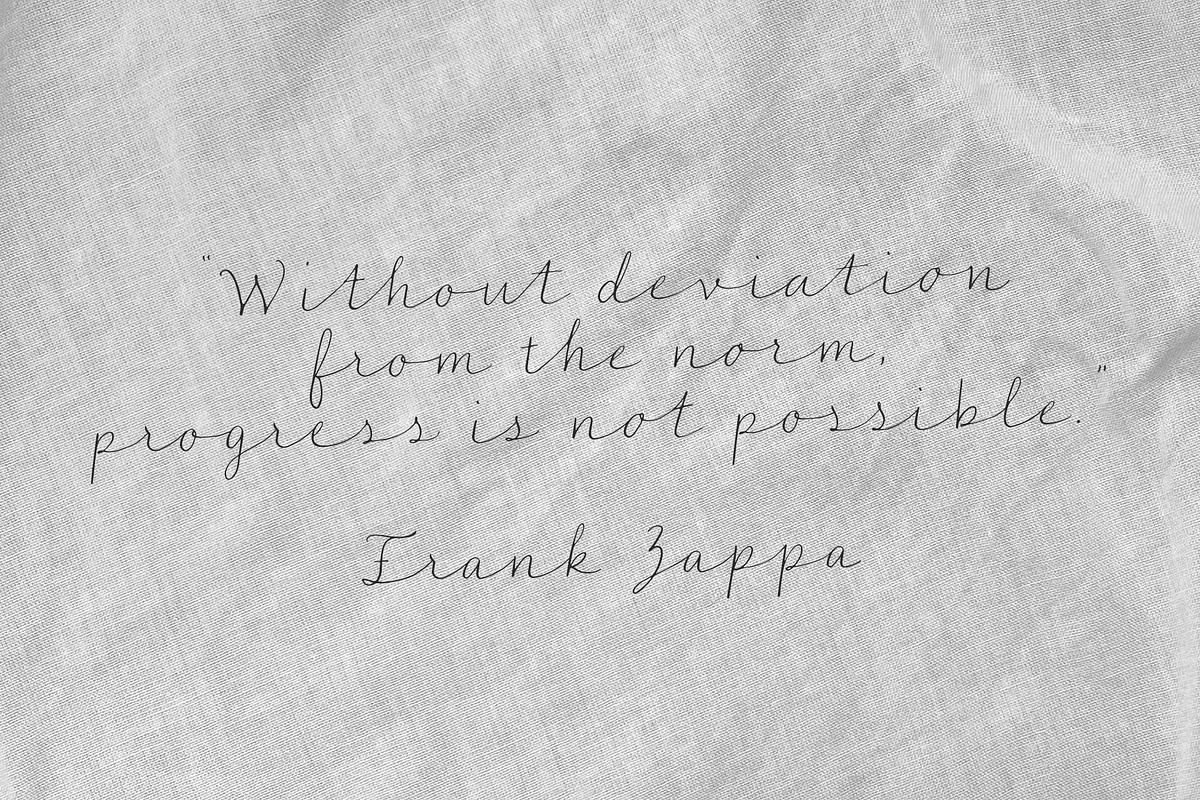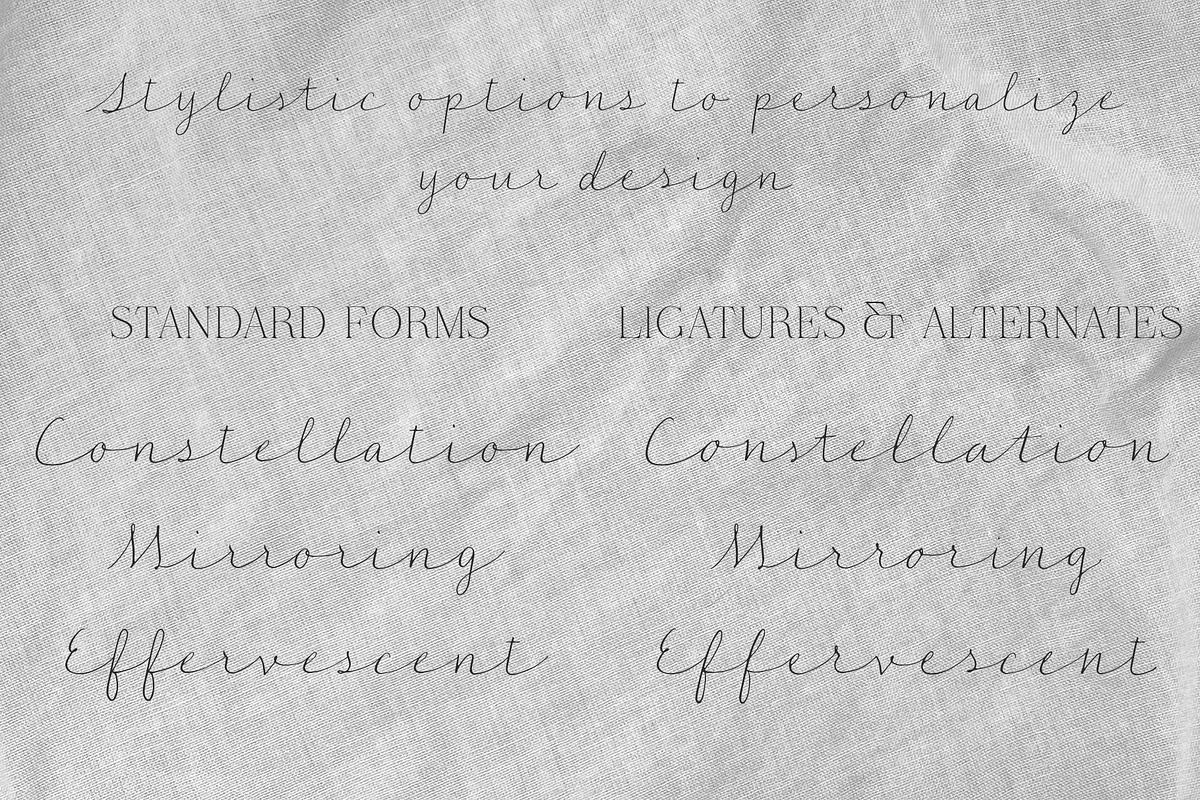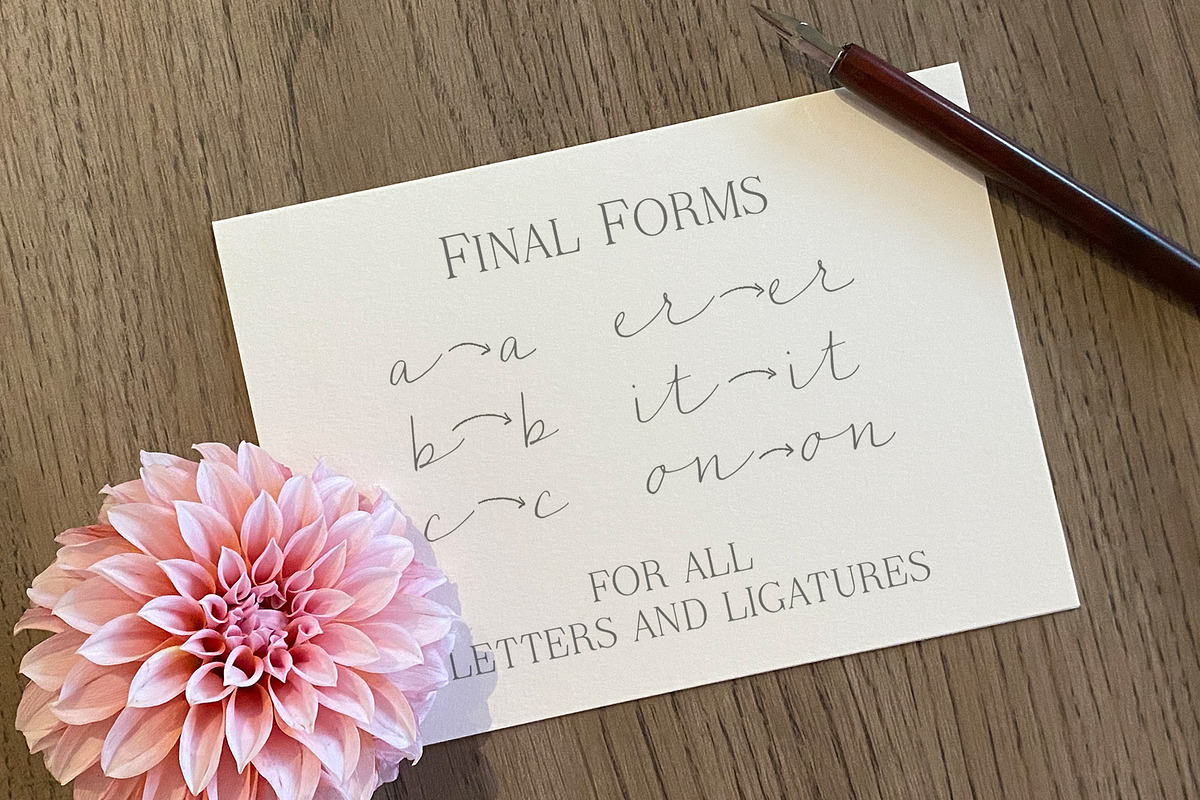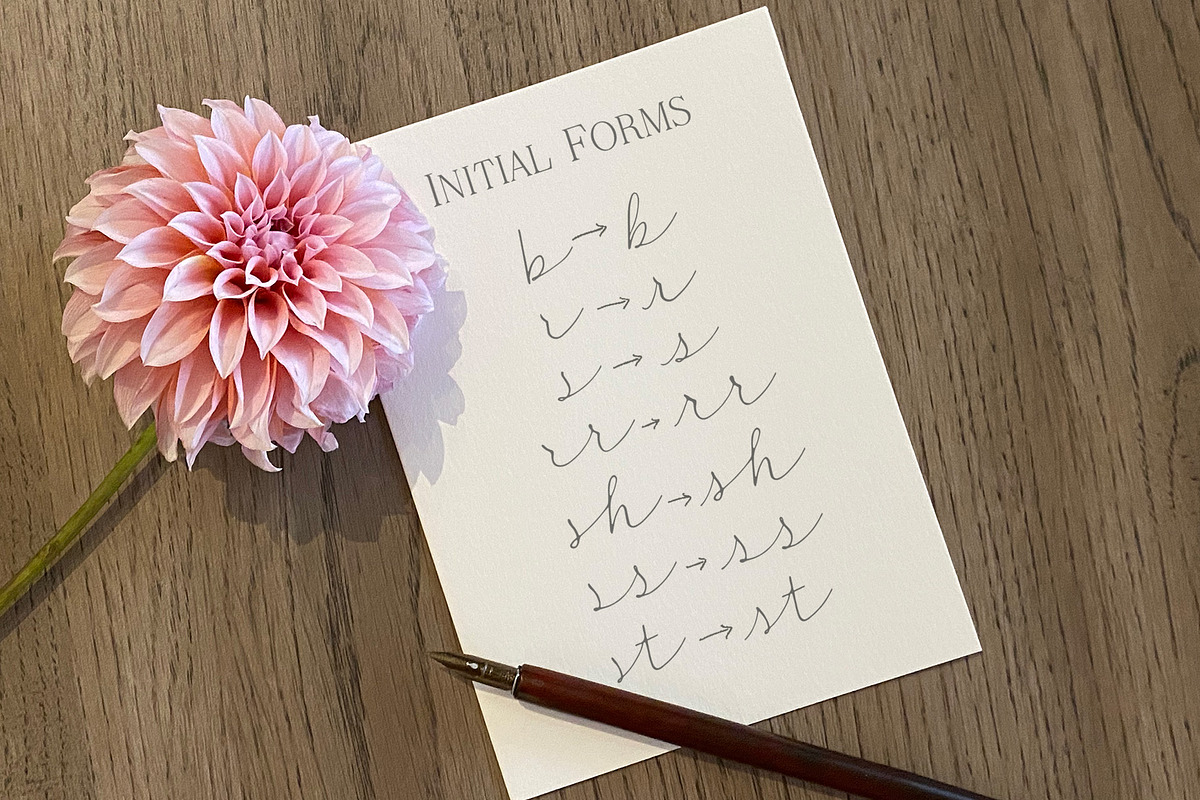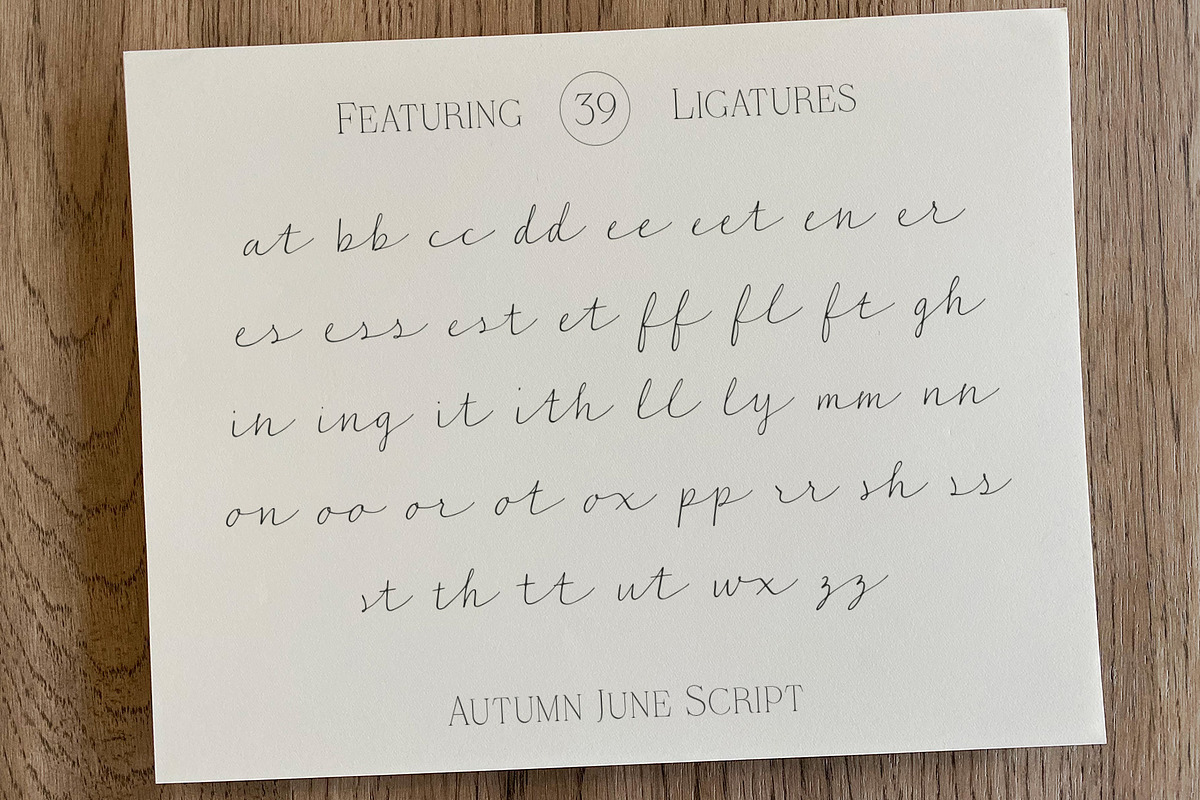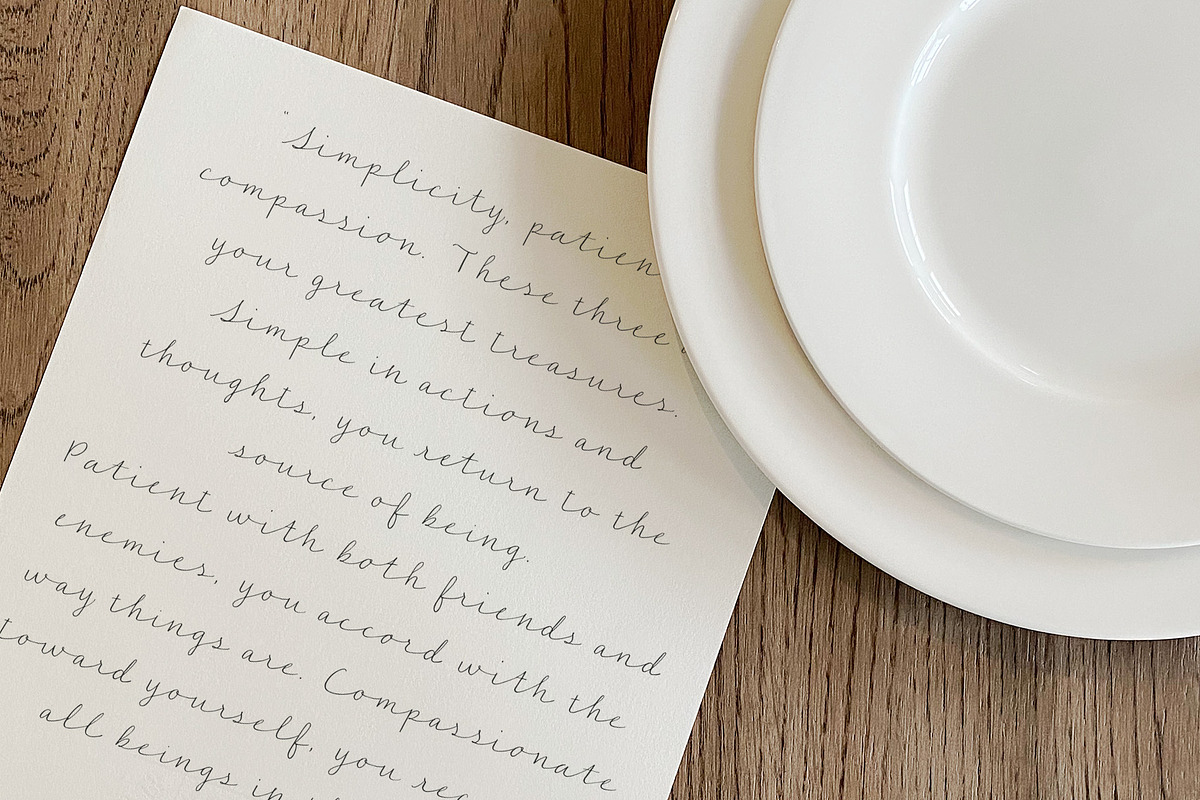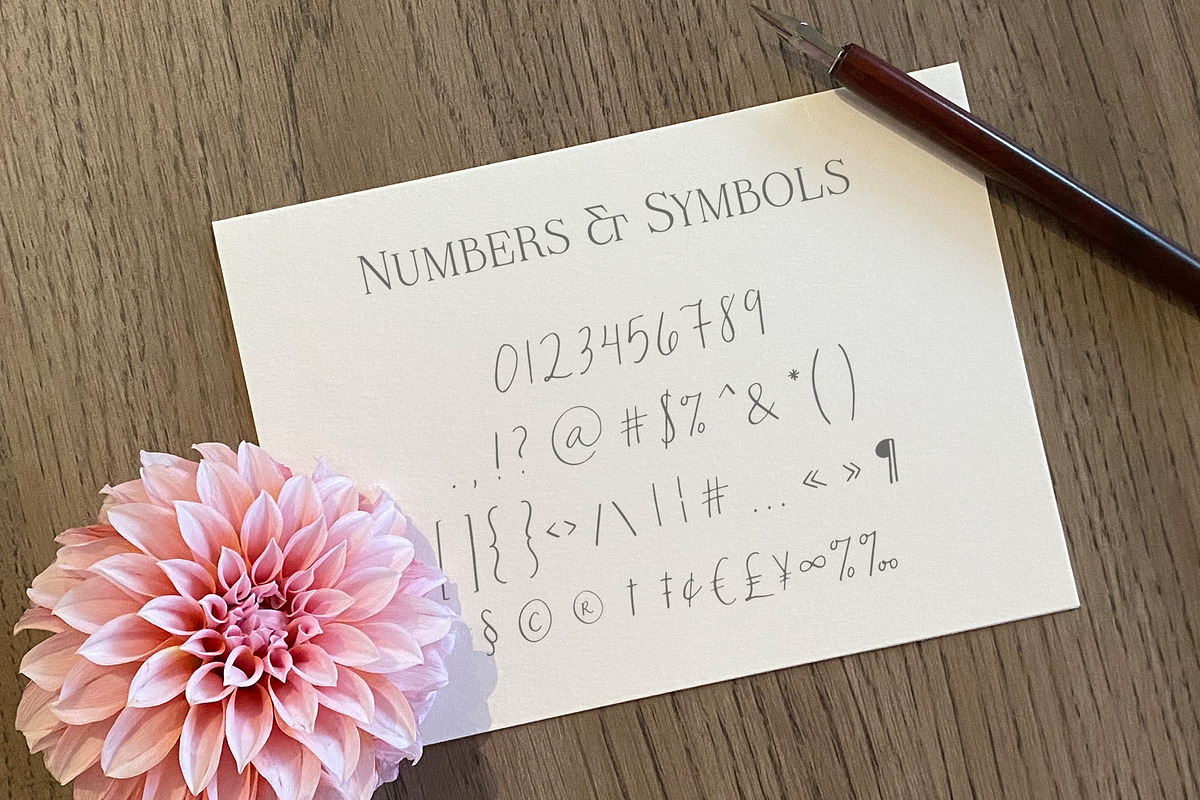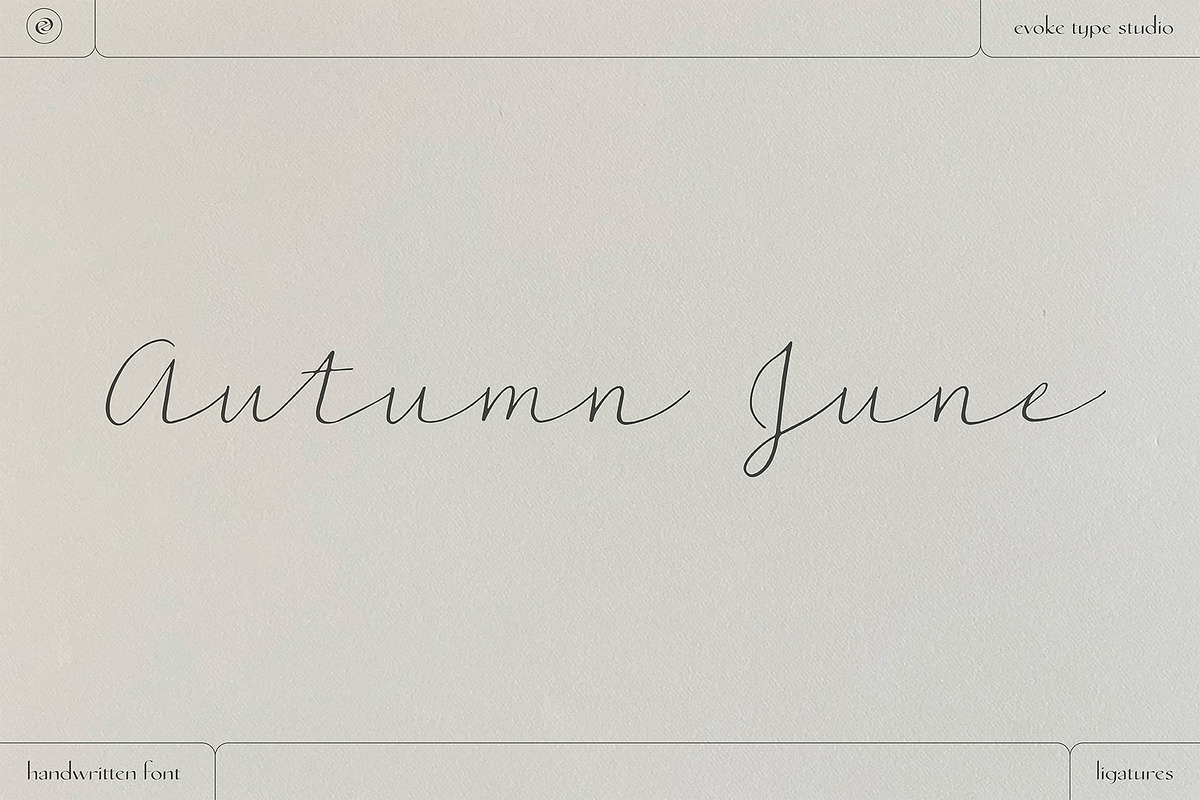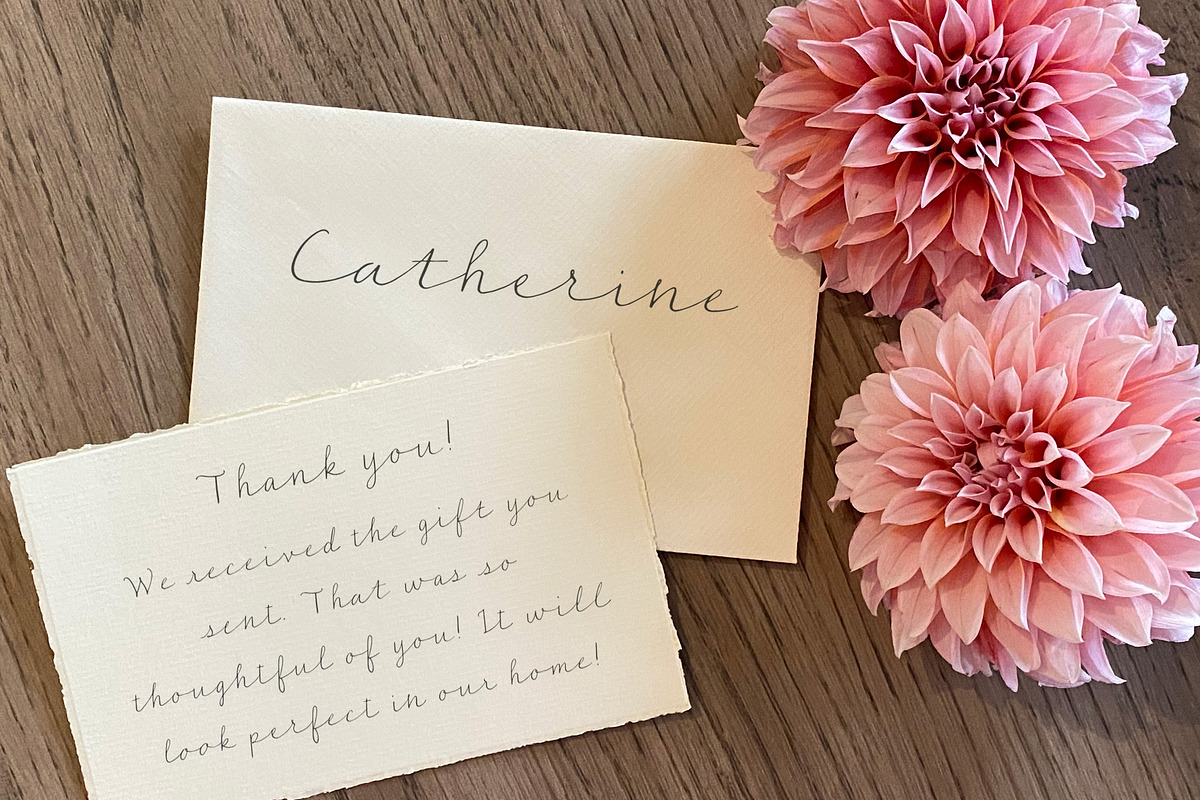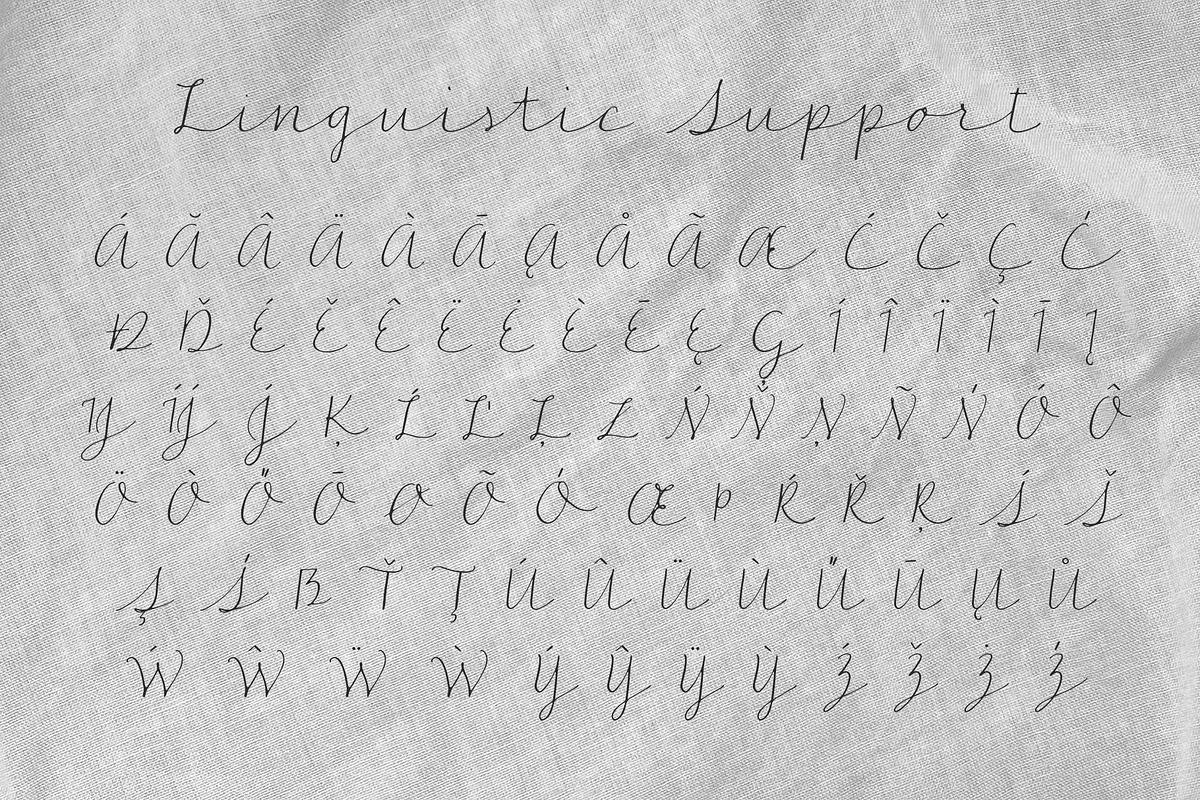
Autumn June Handwritten Script Font
A handwritten font created from the use of a real pointed pen. If you're looking to add a handwritten touch to your letters, envelopes, wedding invitations and packaging, Autumn June is a great script font for you. With 39 ligatures, final and initial forms, you have several options available to you to achieve that perfect handwritten look. Autumn June is also PUA encoded.
Autumn June is a multilingual font with linguistic support for Western and Central European languages.